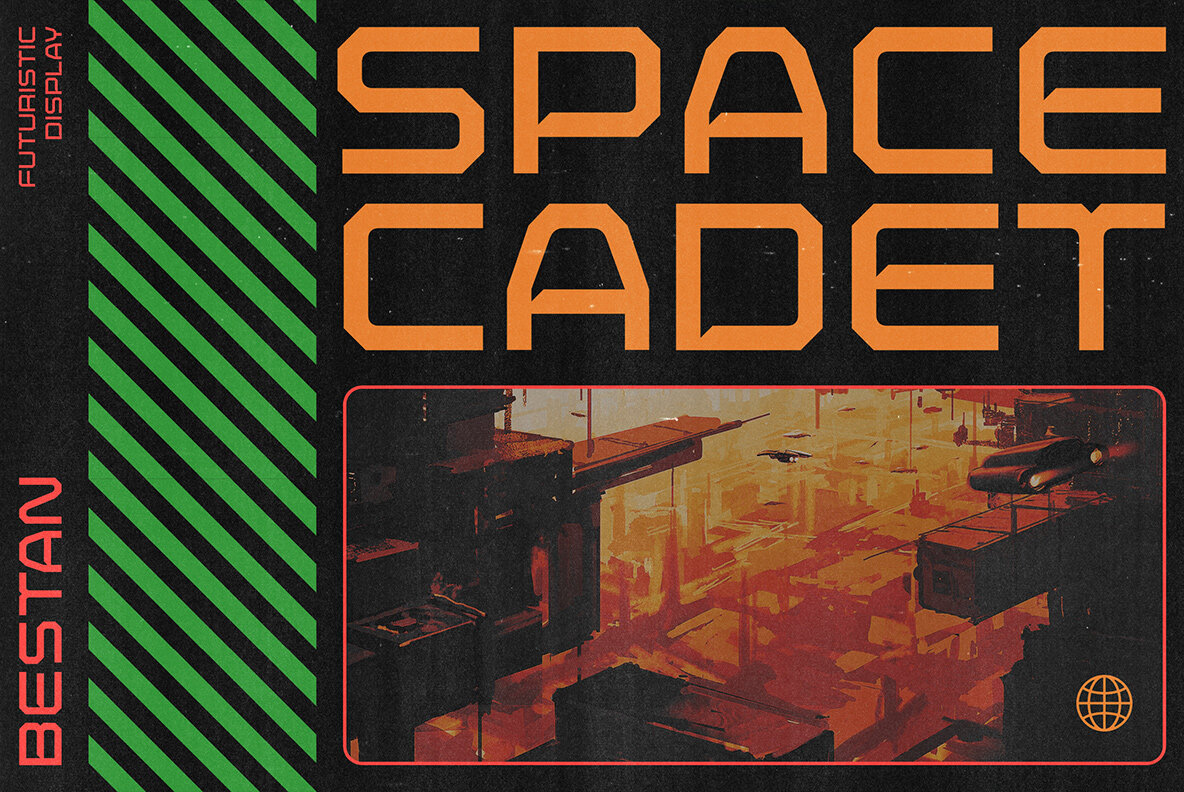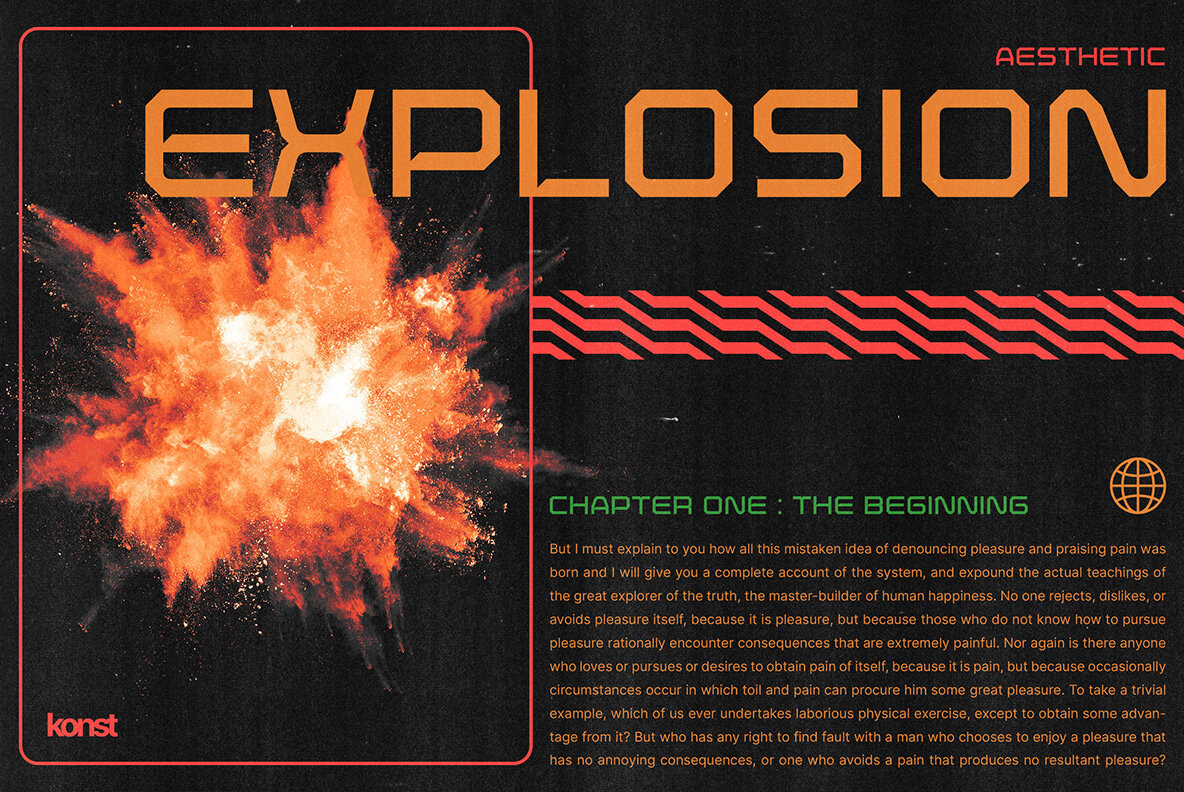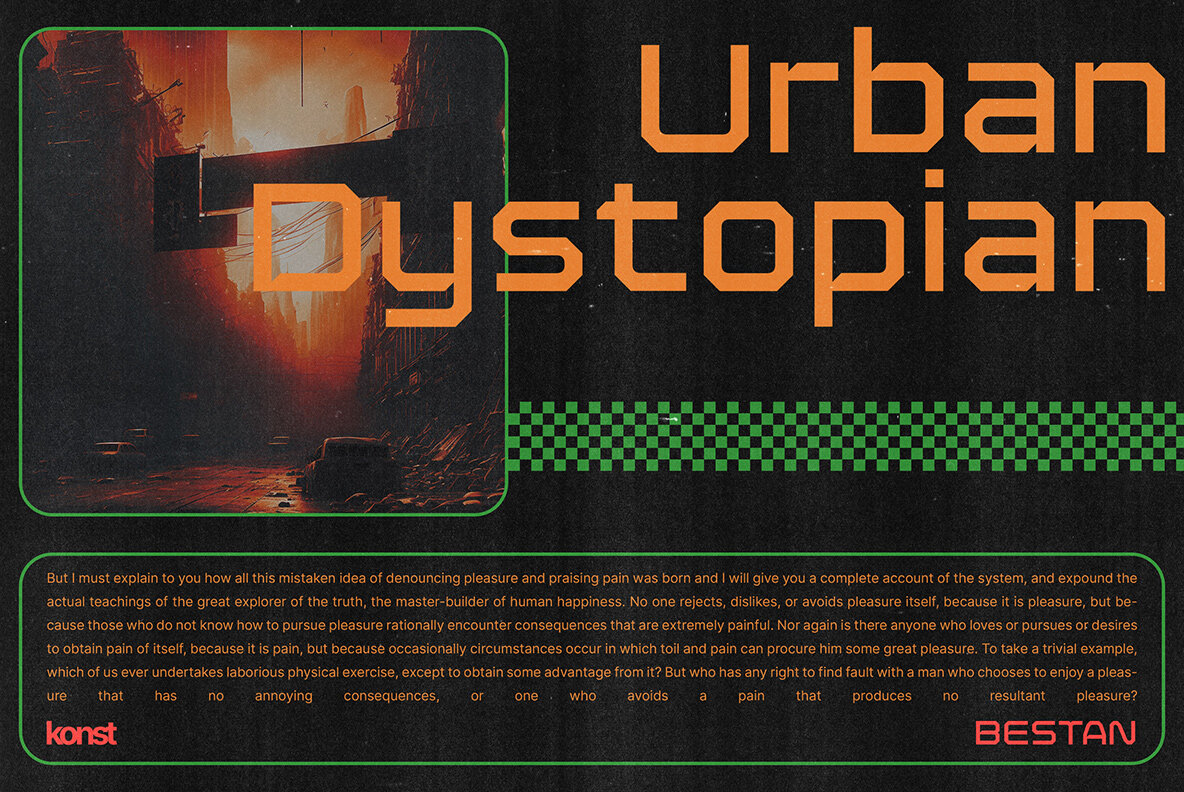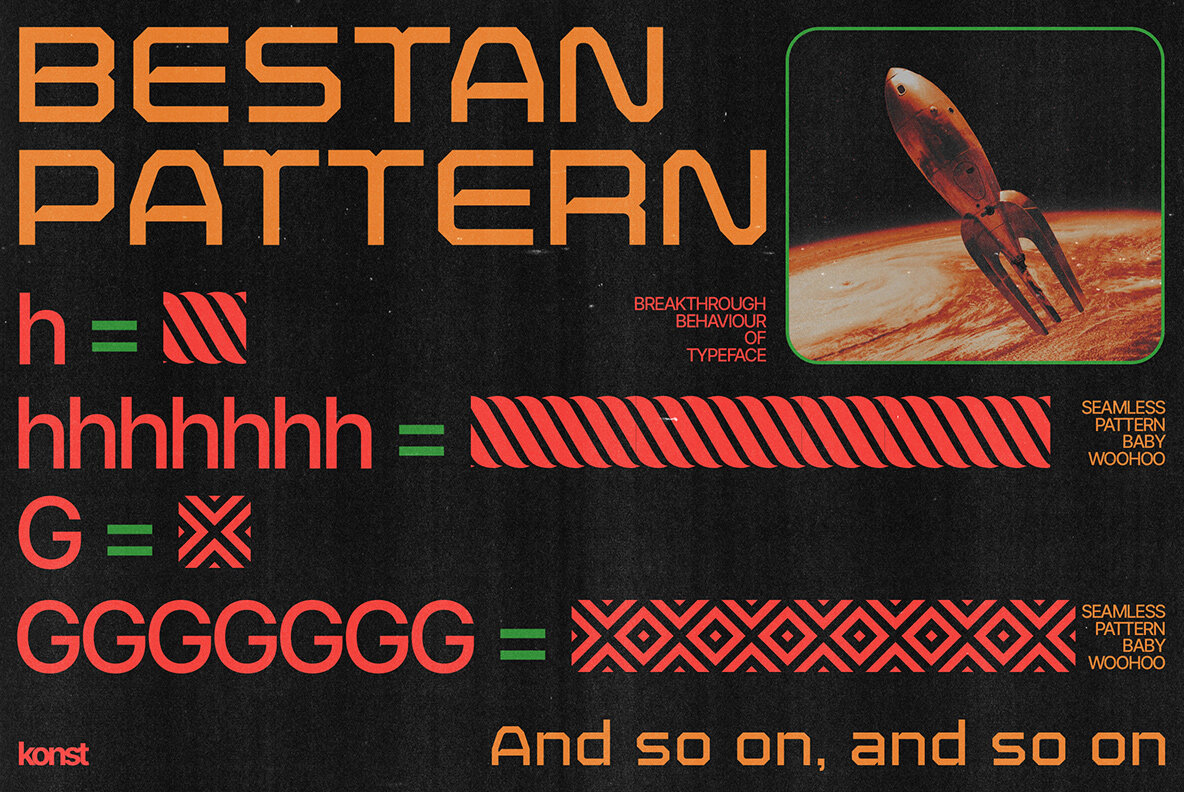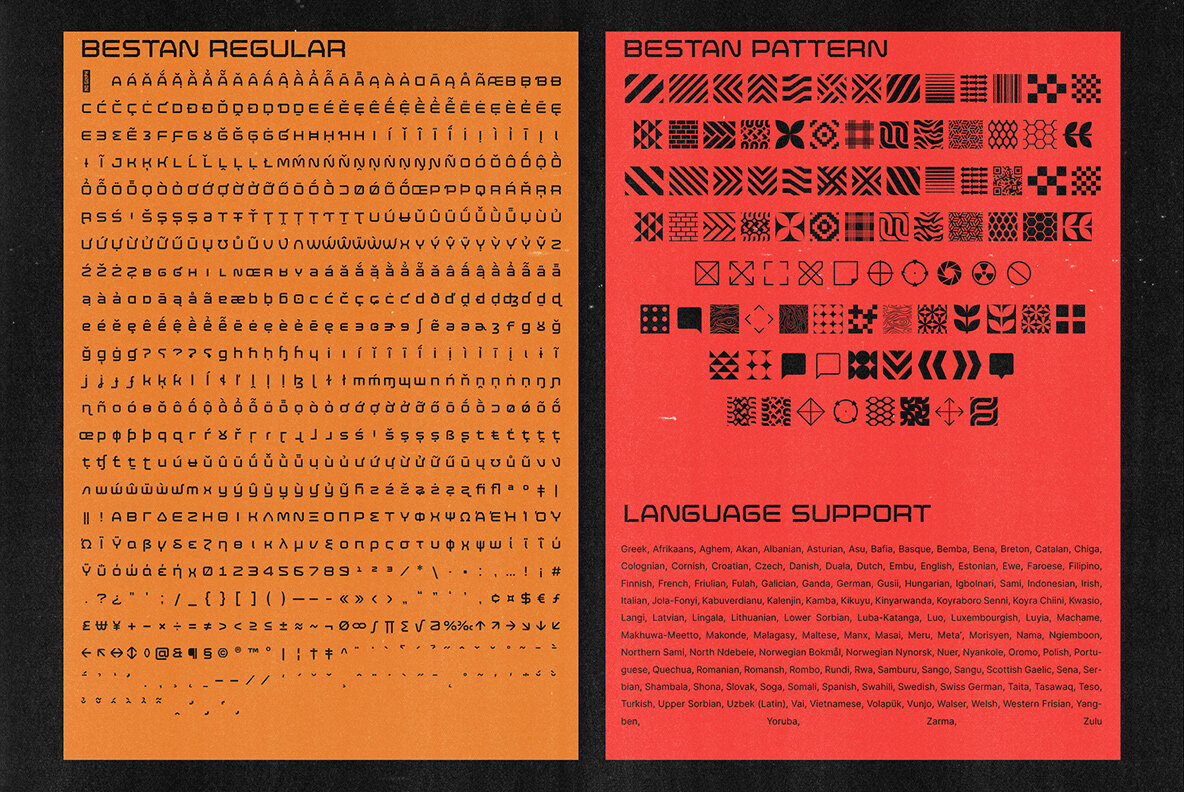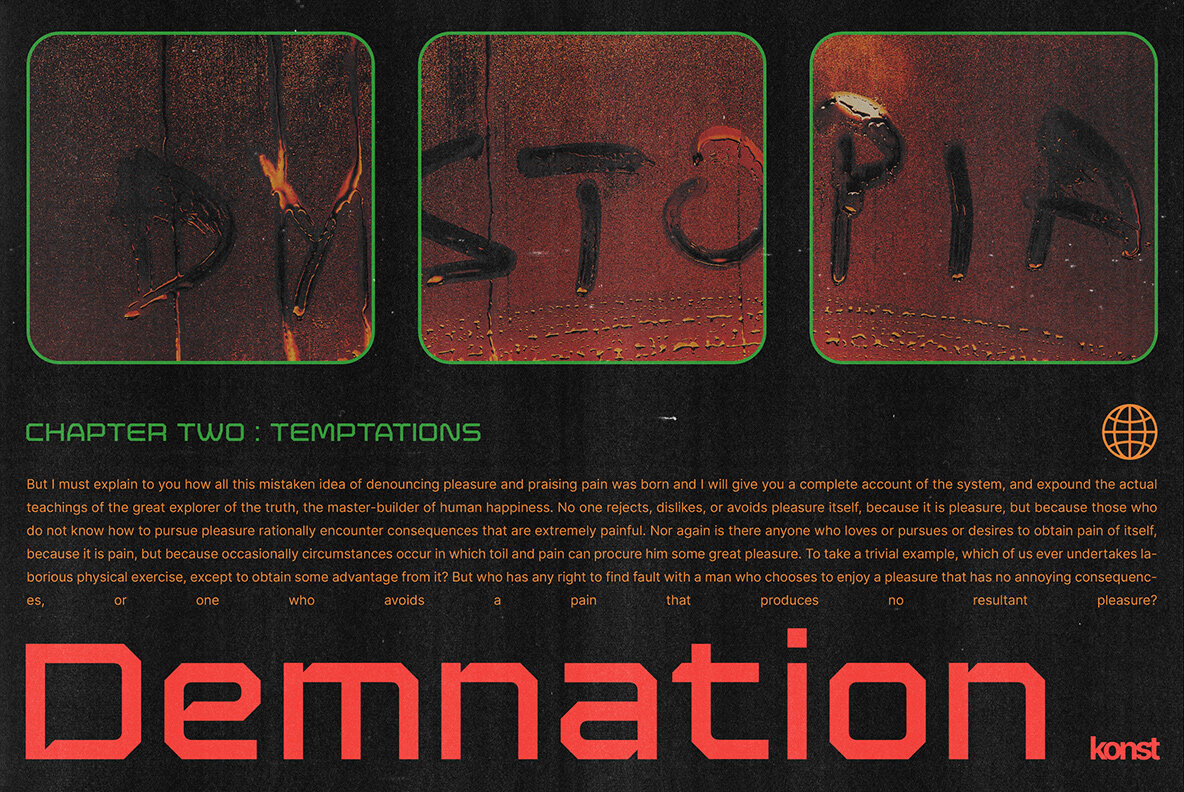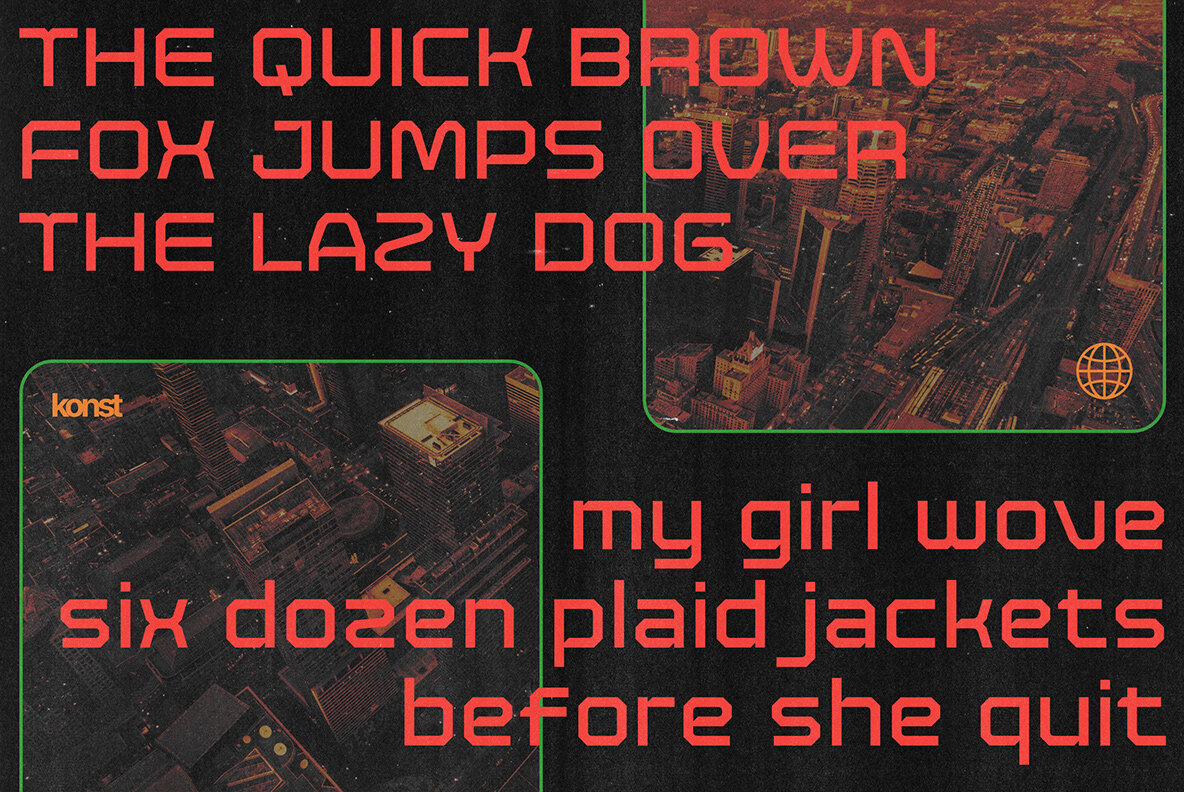
Bestan Font
Bestan is inspired by the typography of the ship's steel containers and industrial-based business branding. Added a slight touch of futuristic vibes to make Bestan appears as a fresh game-changer, either for corporation purpose and also modern urban vibes to your visual graphic design stuff.
Included a special treat called Bestan Pattern. A dingbats-based font in a seamless pattern form, That you can use easily by just typing out a bunch of the same letters with it.